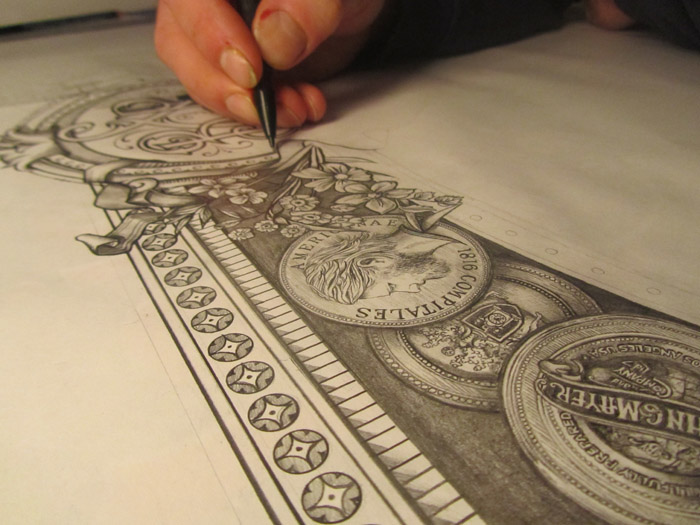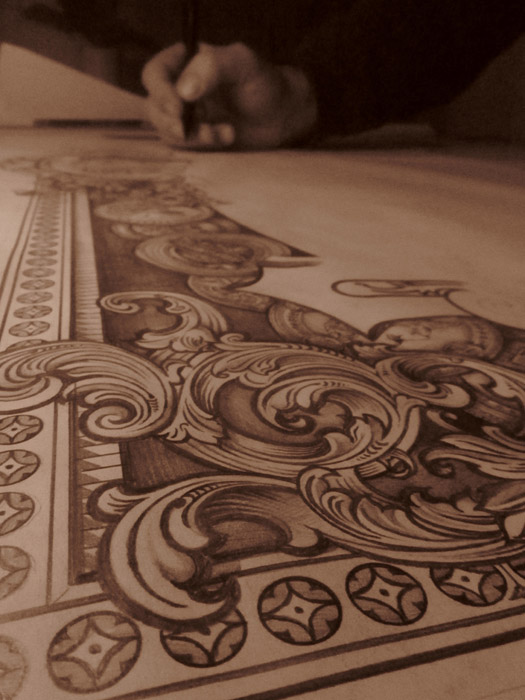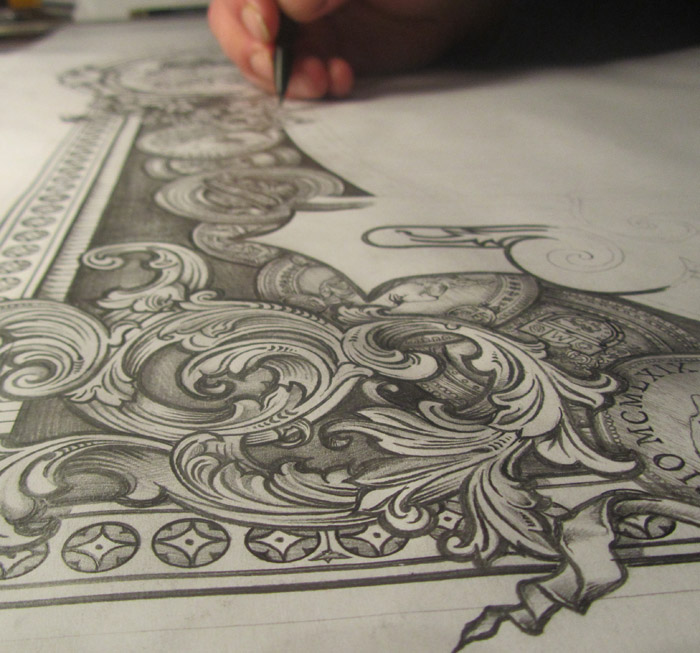
John Mayer, Born and Raised Album Cover art
Hi everyone. Been out of the loop here for a while, just looked through the posts, great work I need to catch up with some of them. Sony Music asked me back in November to make the new Album cover art for John Mayer. At the time I was busy with other work , Sony would only give me 3 weeks to make the artwork so I at to turn it down especially when it comes to contract signing and deadlines. John Mayer had been suffering with throat problems so they cancelled the release date. 2 weeks later they emailed me and asked if I was still up for designing the cover art and I said yes. I hooked up with John on a regualar weekly call for 8 weeks, he was great and fun to deal with. Here is the front design, the back is also finished with all the song titles made from a font I put together and named it Mayer.
Hope you like it. all the litho dots were made by hand. It will come out on ITUNES and cd's in May 22nd.
Fantastic Dave!!! So much to see & atudy, brilliant.
Killer Dave! Thats a nice gig! Congratulations!
Whuf! Very believable. Does the bunch of medals come from something in the music?
"...dots made by hand." Did you do this with paint and brushes?? What size did you work at?
Thanks very much you guy's. Lee it was all hand sketched and designed. John gave me a brief and I made 3 sketches for him he picked the third sketch and never changed it. He asked for a clock coins medals which all mean something to him. The dots were hand done with a felt tip pen to resemble litho dots, no hand painting ! I would of loved to paint this by hand. It was tricky to make. Actually probably harder than using a brush. I have an antique version that looks just like a trade card . This image was designed for instant downloads as I said for ITunes. They have all sorts coming out with this artwork on, it's actually very exciting and at the same time overwelming as I don't know what will come from this opportunity. The total amount of layers was 1556 at 300 dpi 2ft square, file size was 6 gig when i finished, all vector based over the pencil sketch. I'll keep you posted on what happens. My eye's have aged this last month, look forward to getting back to glass work......
Wow, Beautiful stuff Dave. Thanks for posting!
Great job! Congratulations on many levels!
There is only one place they can get something like that. Rest your eyes, as you will probably get more requests.
Thankyou very much Mike, real nice of you to say that. Your right, It's amazing how quick people find you..
Dave you called down the thunder with this one! And the storm of job offers will be approaching like hail stones. Your working from the bonnet (garage) days may be over.
Now you've really gone an dunnit! lol! BOL :D
When I grow up, I want to create an album cover like David Smith or Roger Dean.
Seriously, great work, David.
An excellent example of no matter what medium an artist works in,
or a sign maker, hand lettering or vinyl slapping,
the most important ingredient is design.
You are living proof of just how far an excellent designer can go.
Congretulations Dave of finishing his illustration in time and it looks great.
6 gig is huge!
I think you made this button also?
That is the nice thing when working with layers, you can use the design in different orders?
By the way where did you put your signature?
Still in the learning phase ;-)
Thanks all of you. it's appreciated.
Re: John Mayer, Born and Raised Album Cover art
Davey Boy....outstanding work (as always) and you deserve the accolades. Love the medals and has that real "trade card" flavour. Is amazing to se this appear on the doorstep of a "lowly" signpainter instead of a high end graphics shop. Well Done buddy. Would have replied earlier except my connection with the site was down for some strange reason.
you see there...
Well, Davey, the finished art is real nice and all,
thank you very much for posting the original drawings/sketch...
to me, that is the priceless element of the whole darn project.
Those photos are the best!
Stunningly beautiful Dave! Like Tony said, those initial drawings are priceless. I think you may have just made a whole lot of work for yourself.